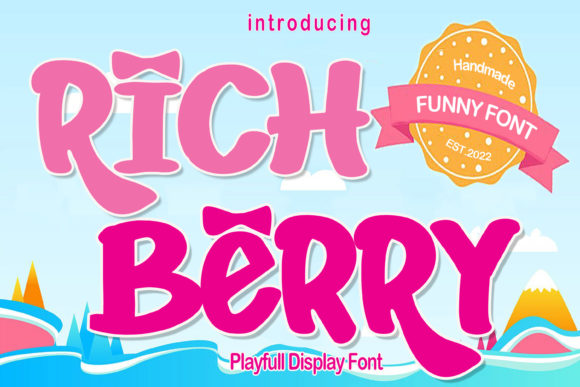
Introducing Rich Berry Font: Elevate Your Designs with a Modern, Unique, and Fun Chunky Lettered Display Font
In the world of design, fonts play a crucial role in conveying messages, expressing emotions, and creating visual identities. A well-chosen font can make or break a design, and that’s where Rich Berry Font comes in – a chunky lettered display font that is set to revolutionize your designs with its modern, unique, and fun aesthetic. In this article, we’ll dive into the features, benefits, and uses of Rich Berry Font, and explore how it can elevate your designs to the next level.
What is Rich Berry Font?
Rich Berry Font is a chunky lettered display font designed to add a touch of modernity, uniqueness, and playfulness to your designs. Its bold, eye-catching letters are perfect for making a statement, and its versatility makes it suitable for a wide range of applications.
- Modern and Unique: Rich Berry Font boasts a fresh and contemporary design that will set your designs apart from the crowd.
- Chunky Lettered: The font’s chunky letters add a fun and playful touch to your designs, making them perfect for creative projects.
- Display Font: Rich Berry Font is designed to be used as a display font, making it ideal for headlines, titles, and attention-grabbing text.
What Can You Use Rich Berry Font For?
Rich Berry Font is an incredibly versatile font that can be used for a wide range of design projects, including:
- Labels: Create eye-catching labels for products, files, or folders with Rich Berry Font.
- Quotes: Add a touch of personality to your quotes with this fun and modern font.
- Posters: Create stunning posters for events, promotions, or advertisements using Rich Berry Font.
- DIY Projects: Add a personal touch to your DIY projects, such as crafts, decorations, or gifts.
- Branding: Use Rich Berry Font to create a unique and memorable brand identity.
- Packaging: Make your product packaging stand out with this bold and eye-catching font.
- Greeting Cards: Create personalized and fun greeting cards for special occasions.
- Websites: Use Rich Berry Font to add a touch of personality to your website’s design.
- Photos: Add text overlays to your photos with Rich Berry Font for a unique and creative touch.
- Photography Overlays: Use Rich Berry Font to add text overlays to your photos, making them perfect for social media or printing.
- Signs: Create eye-catching signs for events, businesses, or promotions.
- Window Art: Add a touch of creativity to your window displays with Rich Berry Font.
- Scrapbooking: Use Rich Berry Font to add a personal touch to your scrapbooking projects.
- Tags: Create custom tags for gifts, files, or folders with Rich Berry Font.
Benefits of Using Rich Berry Font
Rich Berry Font offers a range of benefits that make it an ideal choice for designers, artists, and crafters. Some of the benefits include:
- Easy to Read: Despite its chunky design, Rich Berry Font is easy to read, making it perfect for headlines and titles.
- Highly Versatile: Rich Berry Font can be used for a wide range of design projects, from digital designs to print materials.
- Unique and Memorable: Rich Berry Font’s unique design makes it perfect for creating memorable and eye-catching designs.
- Fun and Playful: The font’s playful design adds a touch of fun and personality to your designs.
Tips for Using Rich Berry Font
To get the most out of Rich Berry Font, here are some tips to keep in mind:
- Use it as a Display Font: Rich Berry Font is designed to be used as a display font, so use it to grab attention and make a statement.
- Experiment with Colors: Rich Berry Font looks great in bold, bright colors, so don’t be afraid to experiment and find the perfect color scheme for your design.
- Pair it with Other Fonts: Rich Berry Font pairs well with other fonts, so try combining it with a sans-serif font for a contrasting look.
- Use it for Headlines: Rich Berry Font is perfect for headlines and titles, so use it to add a touch of personality to your design.
In conclusion, Rich Berry Font is a modern, unique, and fun chunky lettered display font that is perfect for designers, artists, and crafters. Its versatility, ease of use, and eye-catching design make it an ideal choice for a wide range of design projects. Whether you’re looking to create labels, posters, DIY projects, or branding materials, Rich Berry Font is sure to elevate your designs to the next level.